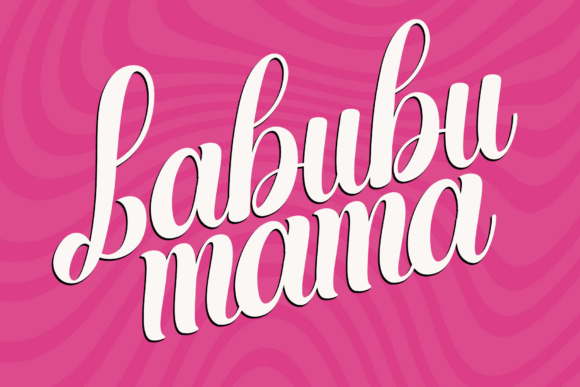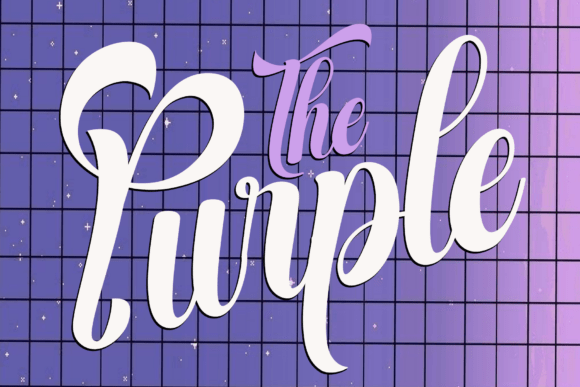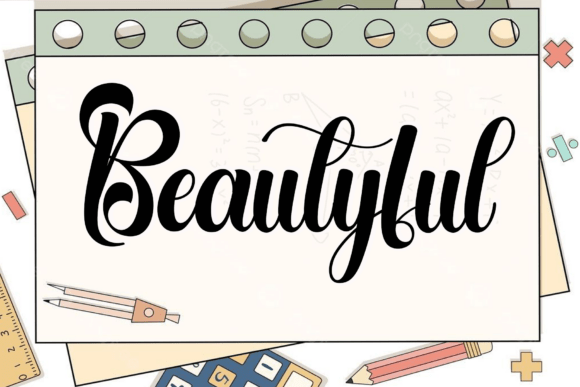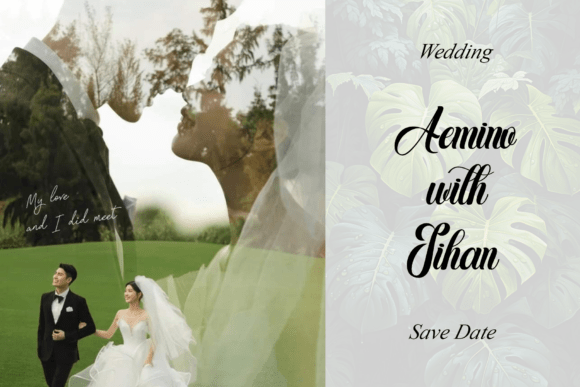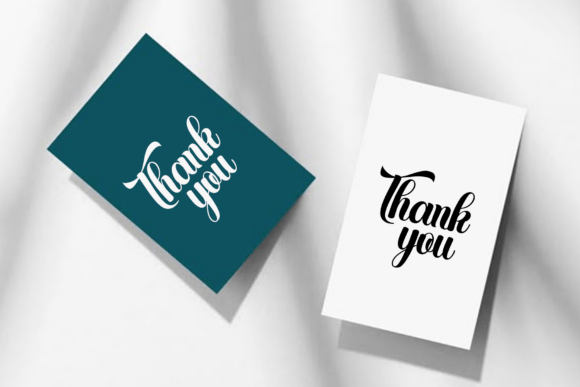
Introducing Buttom Font: Elevate Your Designs with Timeless Elegance
In the world of typography, a well-crafted font can make all the difference in elevating your design projects from ordinary to extraordinary. For designers and crafters seeking a stylish and contemporary handwritten font, Buttom Font is an exceptional choice. Inspired by timeless classic calligraphy, Buttom boasts a balanced and varied design that enhances the beauty of any project.
The Story Behind Buttom Font
Buttom Font is a stylish handwritten font that exudes a sense of contemporary sophistication. Its design is rooted in the elegance of classic calligraphy, yet it carries a modern twist that sets it apart from traditional fonts. The creators of Buttom aimed to craft a font that would not only pay homage to the art of calligraphy but also cater to the needs of modern designers seeking versatile and stylish typography.
Key Features of Buttom Font
- Contemporary Atmosphere: Buttom Font embodies a contemporary atmosphere, making it perfect for designers looking for a modern touch in their projects.
- Impeccable Form: The font’s impeccable form ensures that it maintains a high level of readability and aesthetic appeal, suitable for a wide range of applications.
- Balanced and Varied: Buttom is designed to be balanced and varied, offering a range of styles and weights that can be used to create visual hierarchy and add depth to your designs.
- Inspired by Timeless Classic Calligraphy: The font’s inspiration from classic calligraphy gives it a unique and elegant feel, making it suitable for projects that require a touch of sophistication.
Why Choose Buttom Font?
Buttom Font stands out as a versatile and stylish option for designers and crafters for several reasons:
- Versatility: Buttom can be used across various design projects, from branding and packaging to digital interfaces and print materials.
- Elegance: The font’s elegant and refined appearance makes it suitable for projects that require a high level of sophistication.
- Readability: Buttom’s clear and readable design ensures that your message is conveyed effectively, whether used for headings or body text.
- Uniqueness: Buttom’s unique blend of classic inspiration and modern style ensures that your designs stand out from the crowd.
Using Buttom Font in Your Projects
Buttom Font can elevate a wide range of design projects, including:
- Branding and Logo Design: Create memorable and elegant brand identities with Buttom.
- Packaging Design: Add a touch of sophistication to your product packaging with this versatile font.
- Digital Design: Use Buttom in your website designs, mobile apps, and digital interfaces for a modern and refined look.
- Print Materials: Enhance your brochures, posters, and business cards with Buttom’s elegant and readable design.
Buttom Font is a stylish and versatile handwritten font that brings a touch of timeless elegance to your design projects. Its contemporary atmosphere, impeccable form, and balanced design make it an excellent choice for designers and crafters seeking to elevate their work. Whether you’re creating branding materials, packaging, digital interfaces, or print materials, Buttom Font is sure to enhance the beauty and sophistication of your projects.